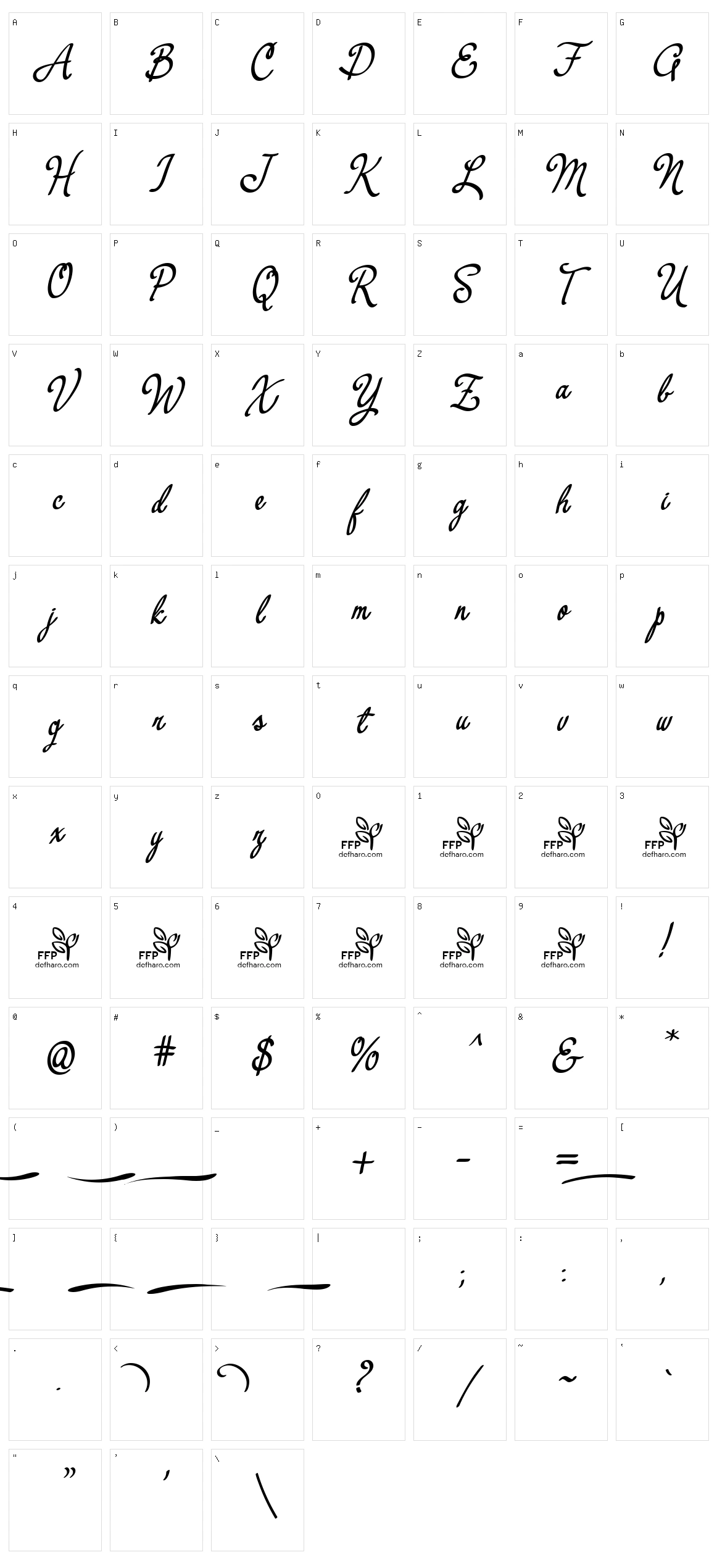
Usage keys for ornaments: < > ( ) [ ] { } | _
Use discretionary ligatures (dlig) to write the default characters.
Bitcoin symbol (ligatures): #b
To use the lowercase letter z alternative use discretionary ligatures (dlig)